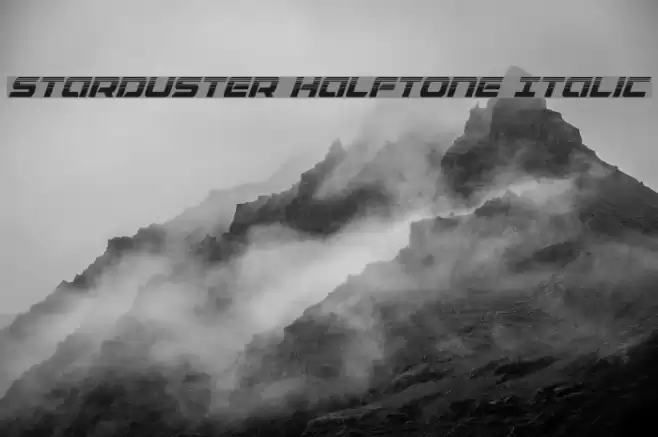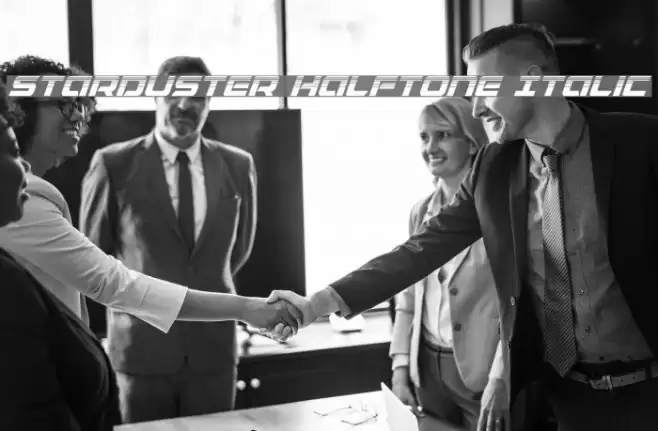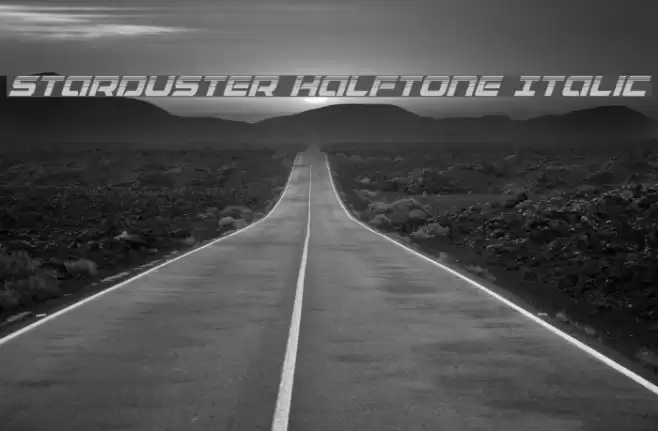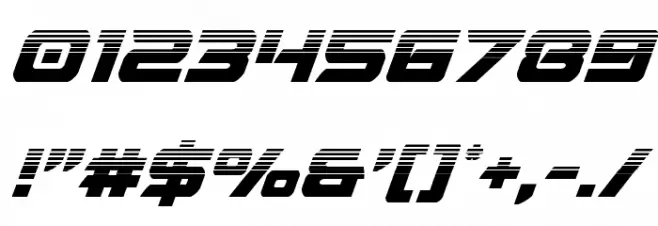
Starduster Halftone Italic Font
Starduster Halftone Italic Description
This font features a dynamic and futuristic design with a halftone effect that gives it a unique, textured appearance. The italicized style adds a sense of motion and speed, making it ideal for projects that require a modern and energetic look. The characters are bold and wide, with a distinctive slanted orientation that enhances its contemporary appeal. The halftone pattern creates a striking visual effect, making the font stand out in any design. Its boldness and unique style make it suitable for eye-catching headlines and creative projects.
A bold, italicized font with a futuristic halftone effect, perfect for dynamic designs from Uncategorized fonts.
- Proposed Projects: Ideal for sci-fi themed posters, video game titles, futuristic branding, and dynamic advertisements.
- Width: Expanded